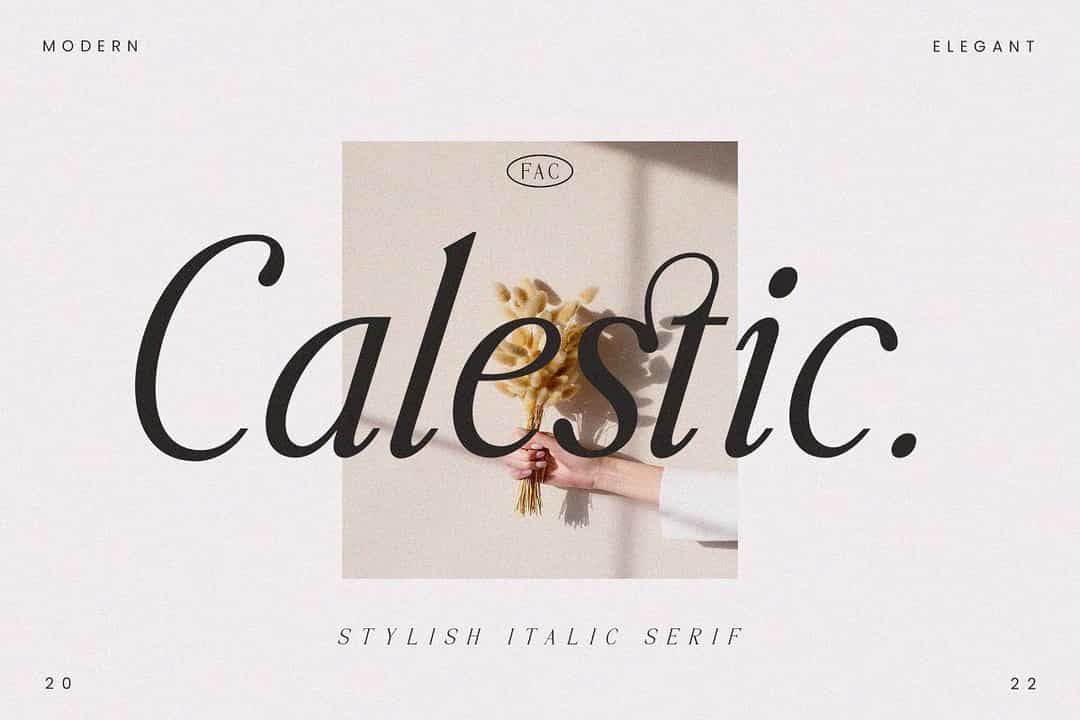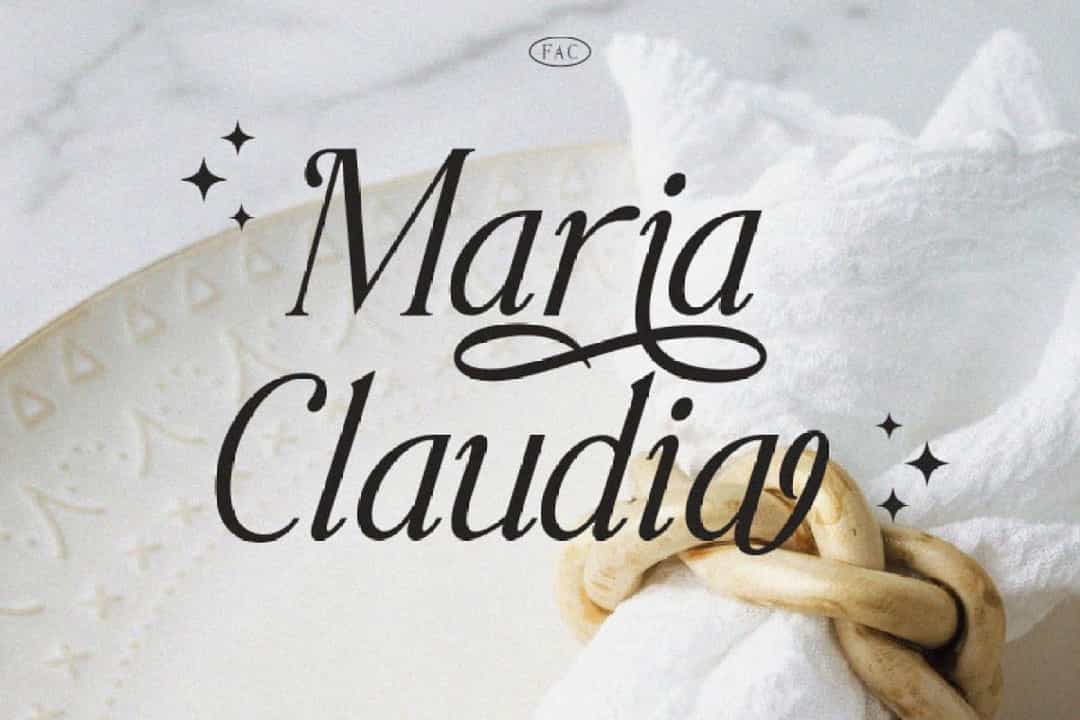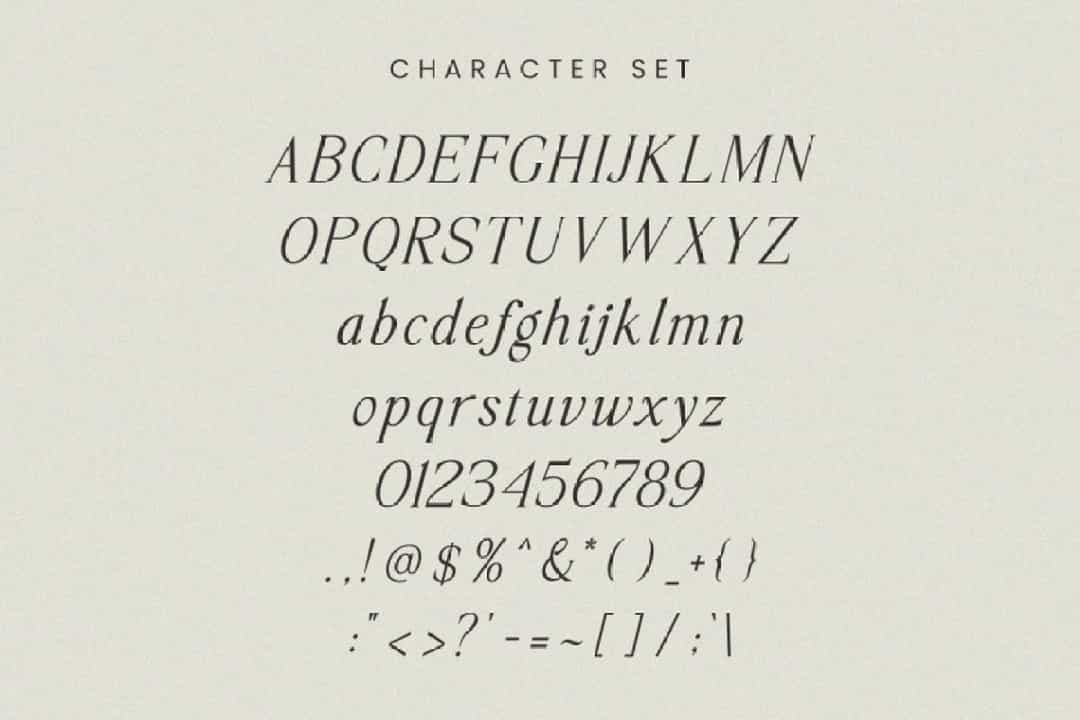
Calestic is an elegant Italic Serif font which lends itself perfectly for use as wedding invitations. Additionally, this font contains connected letters as well as alternative fonts that can be utilized for various graphic designs such as promotional materials, T-shirt prints, business card posters, logos t-shirt photos quotes etc.